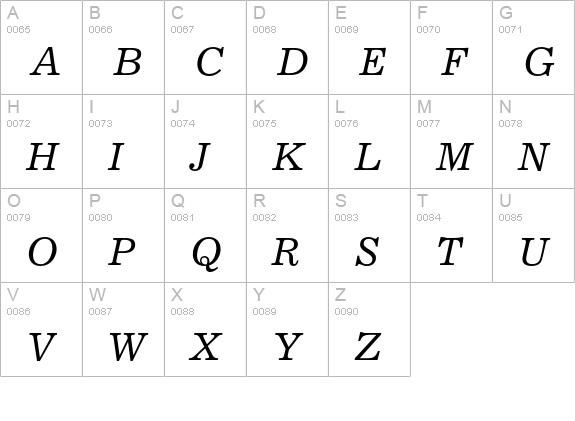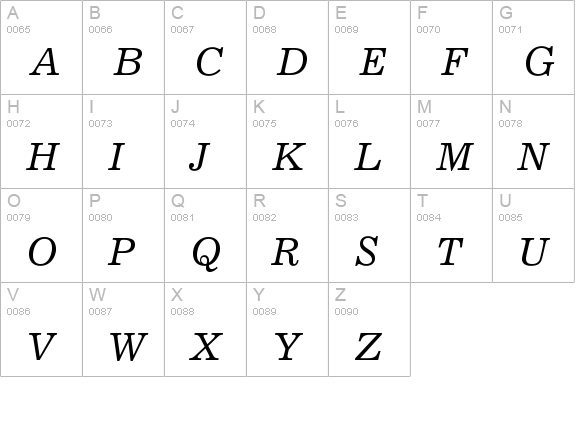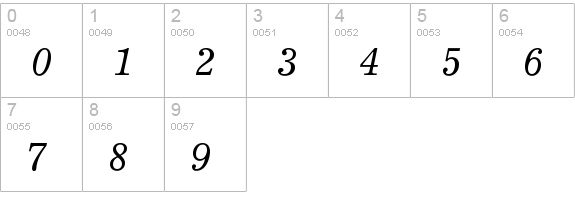
Excelsior Cyrillic Inclined is a sophisticated and elegant font that exudes a sense of style and professionalism. Its sleek and slanted design adds a touch of modernity to any project while retaining a timeless appeal. This font is perfect for creating eye-catching headings, logos, and other design elements that demand attention. What makes Excelsior Cyrillic Inclined even more appealing is that it is available for free download at FontsMarket.com. This means you can access this high-quality font without any cost, making it a valuable addition to your font library. Whether you are a designer, a business owner, or a creative individual looking to enhance your projects, Excelsior Cyrillic Inclined is a versatile and practical choice. Download it today and elevate your designs with this stylish and contemporary font.